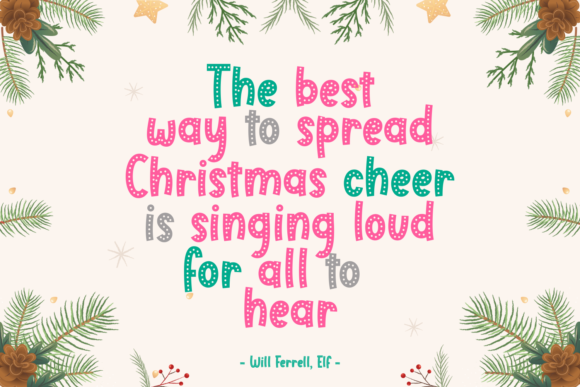
Dear Christmas Font
Dear Christmas is a cute decorative font with a winter/Christmas theme. It will add an incredibly joyful touch to your designs. Add this beautiful font to each of your creative ideas and notice how it makes them stand out!